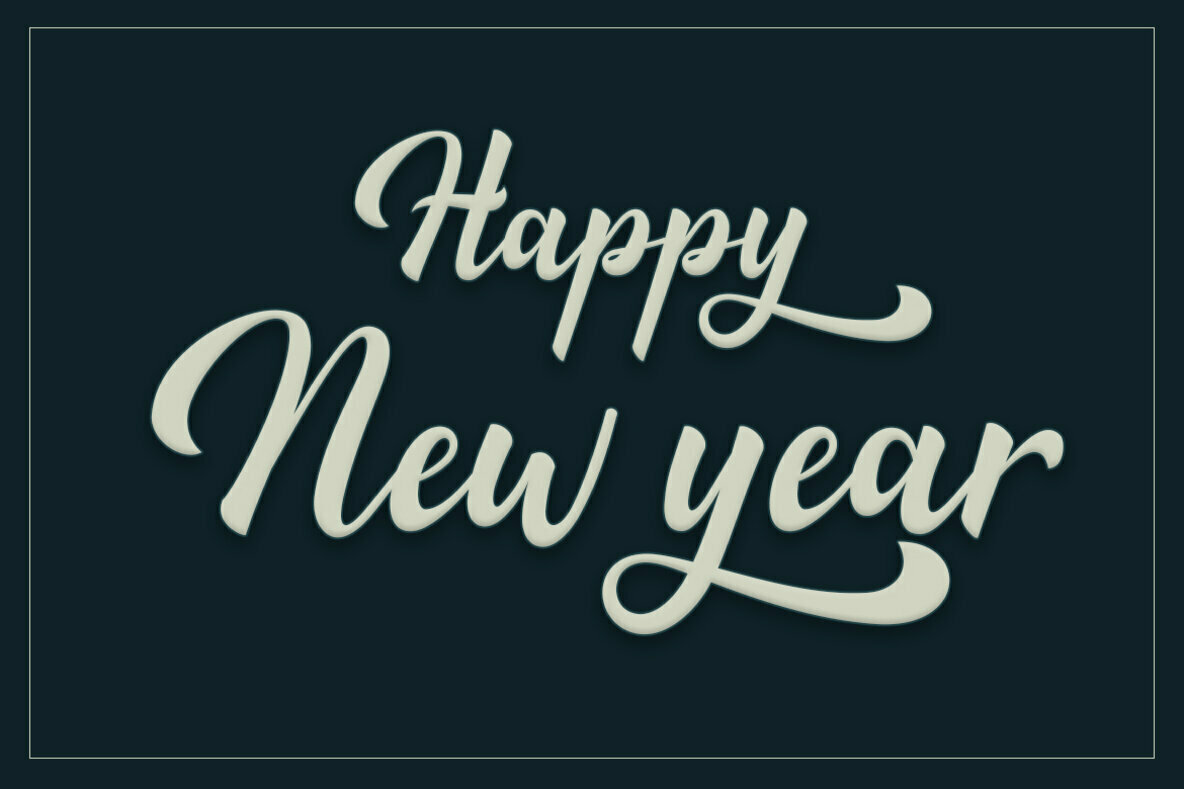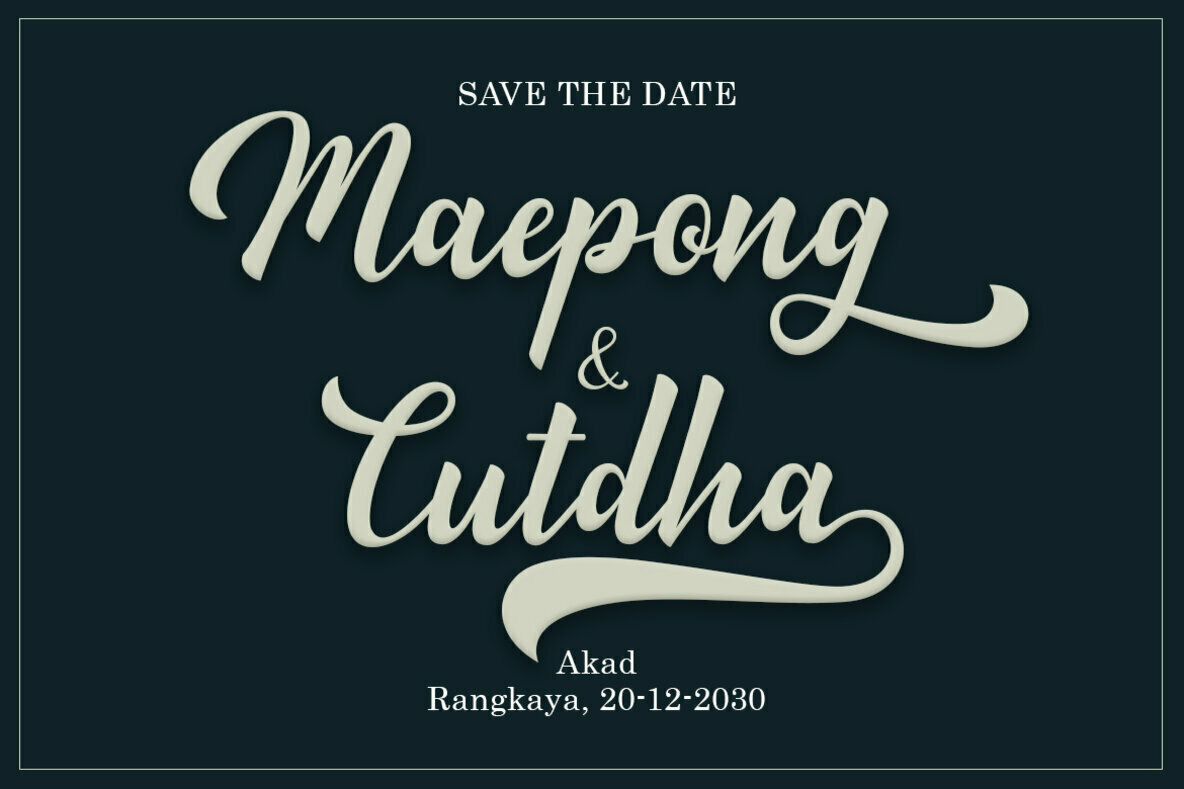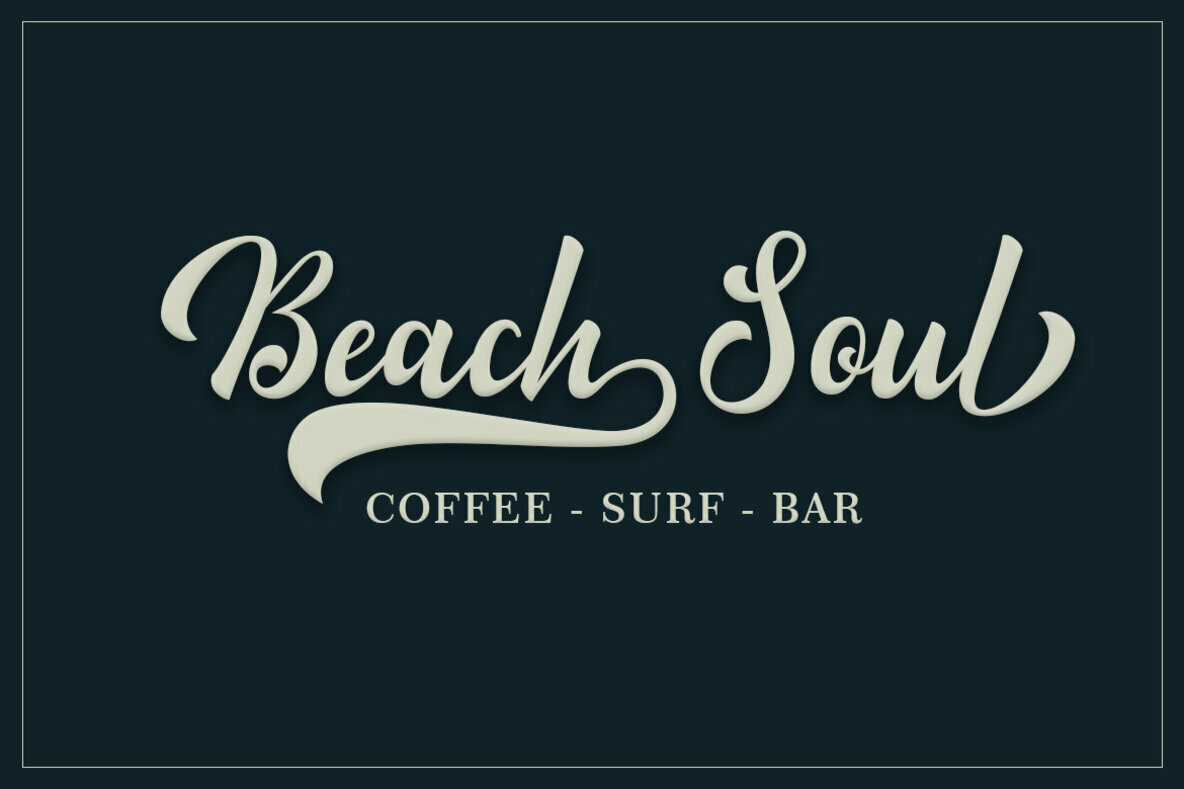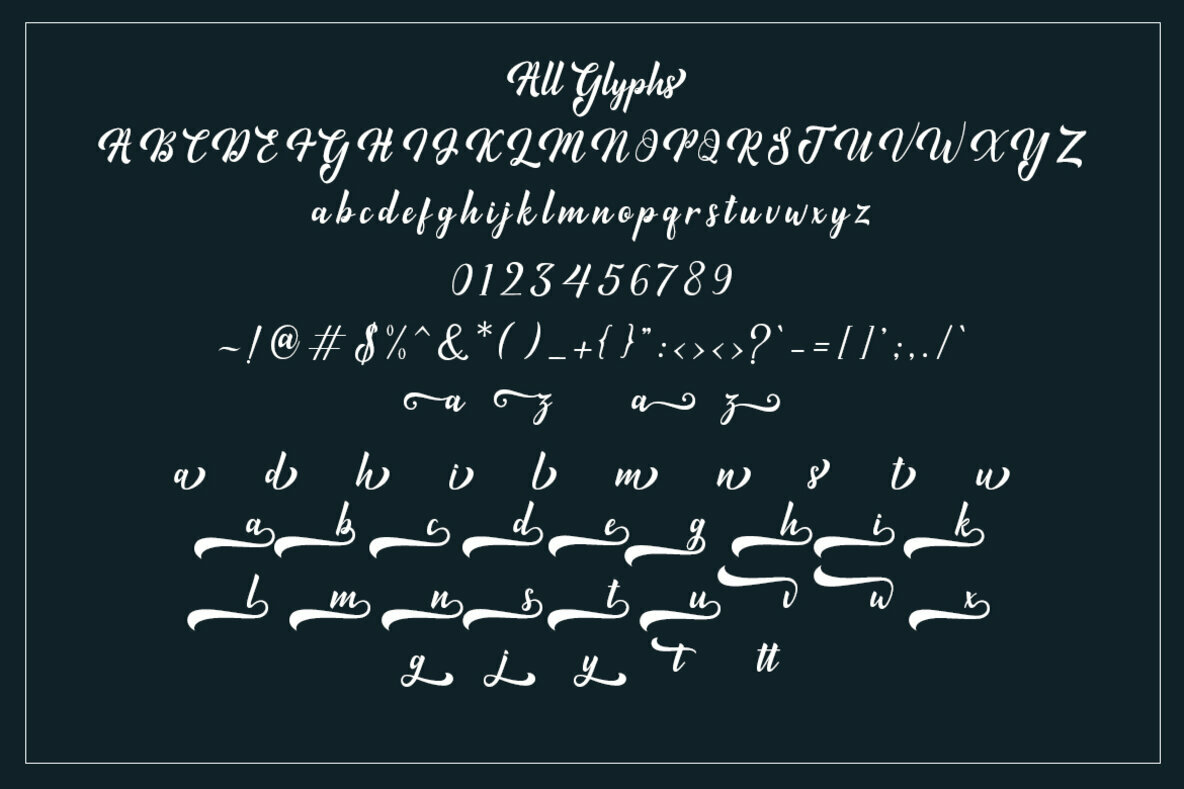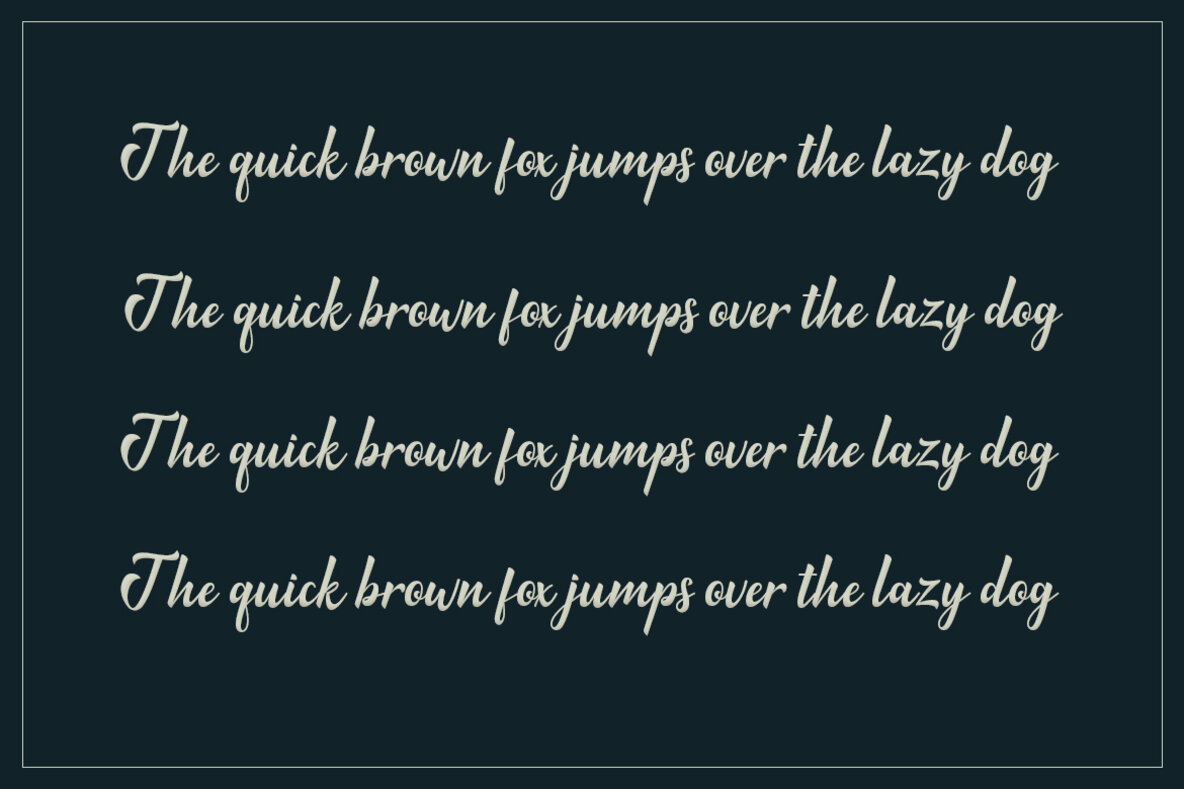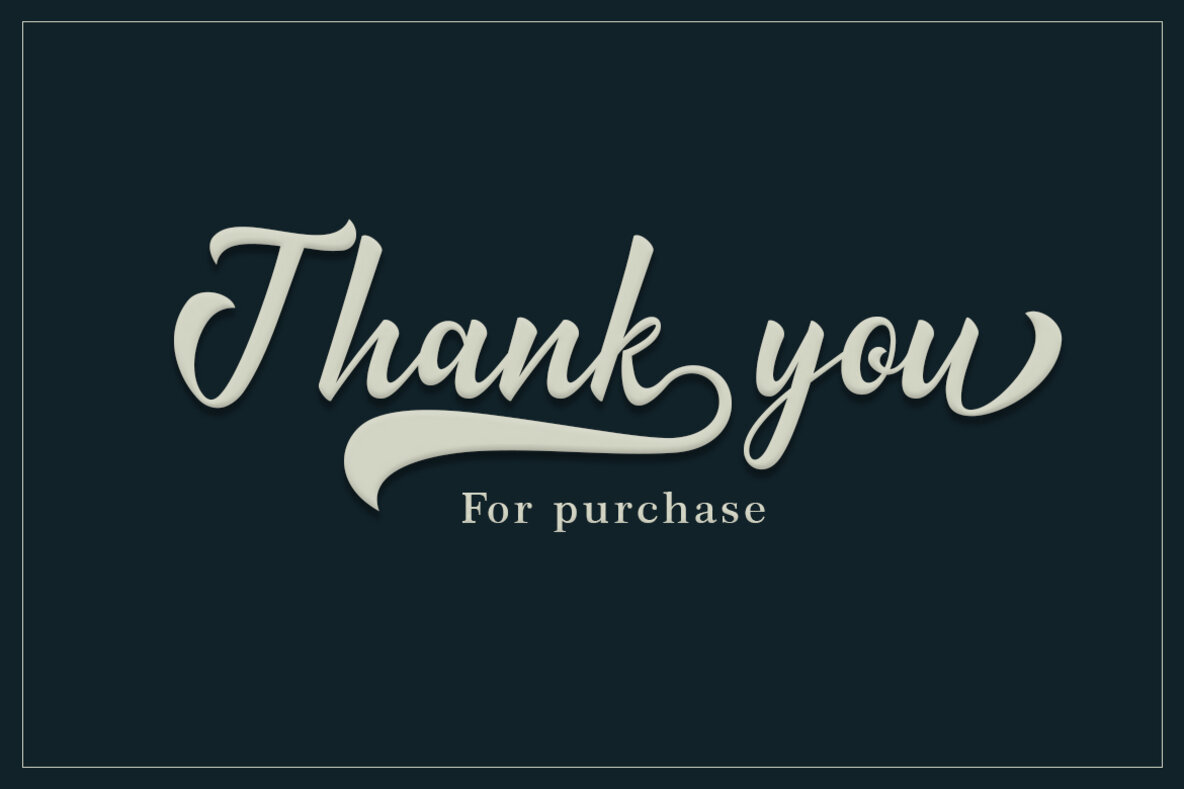
Minthas Font
Minthas Script
The Minthas script, created by Amar Lettering, is an elegant typeface enriched with more than 280 glyphs. It offers a range of OpenType features, designed to meet the creative needs of discerning designers. This typeface presents an array of stylistic choices, including swashes, stylistic sets, stylistic alternates, and contextual alternates, providing flexibility in design projects. The Minthas script's OpenType features are fully accessible through programs like Adobe Illustrator, Adobe InDesign, Adobe Photoshop, Corel Draw X, and Microsoft Word. Thanks to its PUA Unicode encoding, every alternative character is readily available, streamlining the creative process for designers who demand precision and adaptability.Minthas: A Versatile Script Typeface with Stylistic Options
OpenType Features and Accessibility